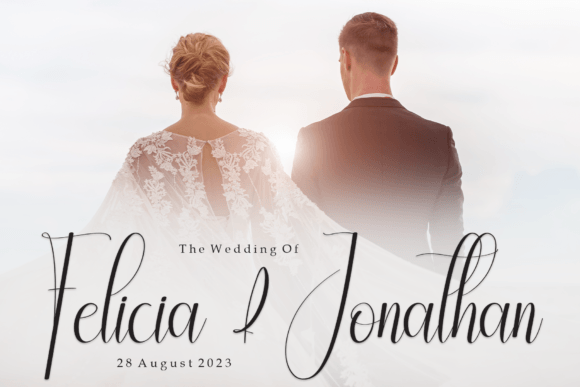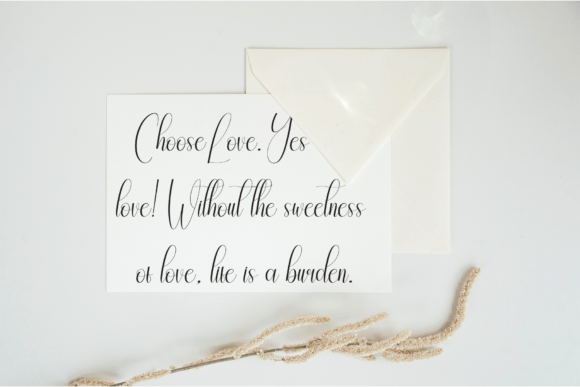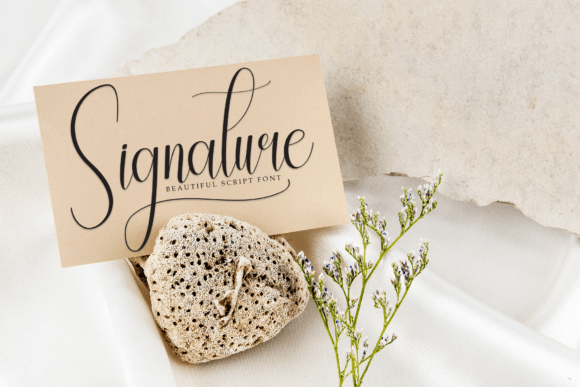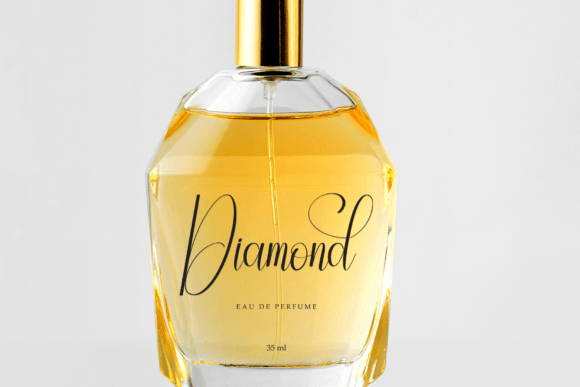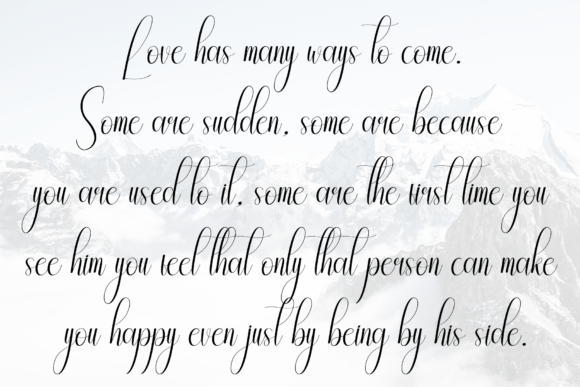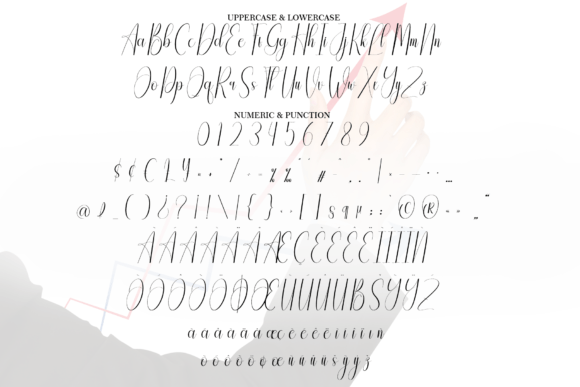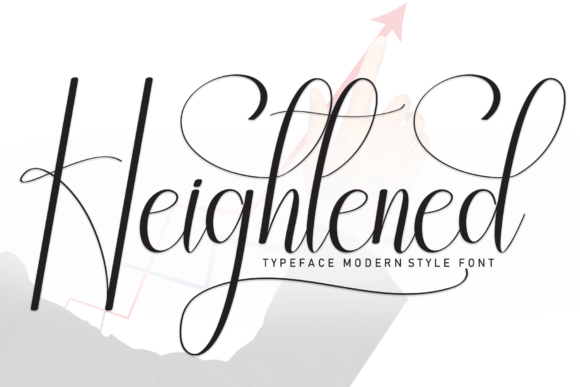
Introducing Heightened Font: Elevate Your Designs with Elegance
Are you on the hunt for a font that exudes elegance and sophistication? Look no further than Heightened, a stunning flowing handwritten font that is sure to capture your heart. With its incredibly distinct and timeless style, Heightened is the perfect addition to your favorite projects. In this article, we’ll dive into the world of Heightened Font, exploring its unique features, and how you can use it to create spectacular designs that leave a lasting impression.
The Story Behind Heightened Font
Heightened Font is a carefully crafted handwritten font, designed to bring a touch of elegance to your designs. Its flowing lines and curves are a testament to the beauty of handwritten typography, making it perfect for projects that require a personal touch. Whether you’re a designer, craftsperson, or simply a DIY enthusiast, Heightened Font is sure to inspire your creativity.
Key Features of Heightened Font
- Elegant Touch: Heightened Font boasts an elegant touch that sets it apart from other fonts. Its refined lines and curves make it perfect for projects that require a sophisticated look.
- Flowing Handwritten Style: The font’s flowing handwritten style gives it a unique and organic feel, making it perfect for designs that require a personal touch.
- Distinct and Timeless: Heightened Font’s incredibly distinct and timeless style ensures that your designs will stand the test of time, long after trends have come and gone.
- Versatile: Whether you’re working on a logo, branding project, or simply a creative endeavor, Heightened Font is versatile enough to adapt to any design style.
Uses for Heightened Font
So, how can you use Heightened Font to elevate your designs? The possibilities are endless! Here are a few ideas to get you started:
- Logo Design: Create a stunning logo for your business or brand with Heightened Font. Its elegant touch and flowing style make it perfect for creating a memorable and impactful logo.
- Branding and Packaging: Use Heightened Font to create a cohesive brand identity that exudes elegance and sophistication. From business cards to product packaging, this font is sure to make your brand stand out.
- Stationery and Invitations: Add a touch of elegance to your stationery and invitations with Heightened Font. Whether you’re sending out wedding invitations or creating custom stationery, this font is sure to impress.
- Digital Designs: Heightened Font is also perfect for digital designs, from social media graphics to website headers. Its versatility and elegance make it a great addition to any digital project.
Tips for Using Heightened Font
To get the most out of Heightened Font, here are a few tips to keep in mind:
- Experiment with Colors: Heightened Font looks stunning in a variety of colors. Experiment with different hues and combinations to find the perfect look for your design.
- Play with Pairings: Try pairing Heightened Font with other fonts to create a unique and interesting design. Its elegant touch and flowing style make it a great match for a variety of font combinations.
- Pay Attention to Spacing: As with any font, spacing is key when using Heightened Font. Make sure to adjust the spacing to ensure that your design looks balanced and visually appealing.
In conclusion, Heightened Font is a stunning addition to any designer’s toolkit. Its elegant touch, flowing handwritten style, and incredibly distinct and timeless design make it perfect for a wide range of projects. Whether you’re a seasoned designer or just starting out, Heightened Font is sure to inspire your creativity and help you create spectacular designs that leave a lasting impression.